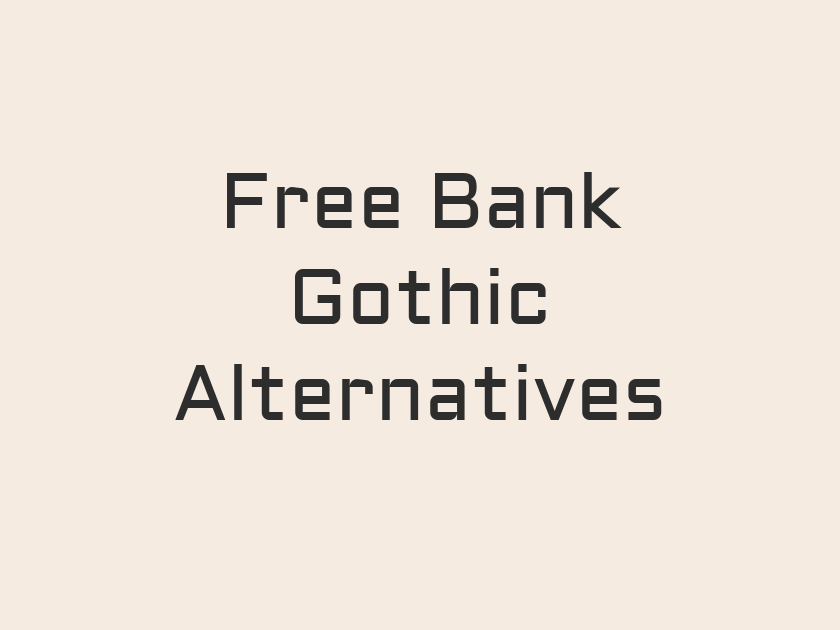
14 Best Free Fonts Alternatives to Bank Gothic
Bank Gothic has powered military insignias, sports jerseys, action-movie titles, and tech logos for the better part of a century, but the original typeface sits behind a commercial license. The good news is that the geometric, squared-off, all-caps sensibility that made it a staple of industrial and athletic branding lives on in a handful of free Google Fonts that channel the same engineered, stenciled, no-nonsense attitude. Whether you’re building a esports logo, a fitness brand, or a piece of dystopian film title design, there are solid free alternatives to Bank Gothic that hold up in print and on screen.
1. Aldrich
Aldrich
Aldrich is probably the single closest free match to Bank Gothic’s DNA: geometric monoline strokes, squared curves, and a futuristic-but-restrained posture that reads as engineered rather than decorative. It was built for interfaces and signage, so it holds its shape cleanly at small sizes, something Bank Gothic itself sometimes struggles with. Use it for dashboards, control-panel labels, or any brand that wants to feel precise without going full sci-fi.
2. Michroma
Michroma
Wide, uppercase-only, and mechanically even, Michroma leans harder into the industrial-tech register than most Bank Gothic substitutes. It suits logotypes and headline treatments where letterforms need to feel like they were milled rather than drawn. Pair it sparingly; its width and weight make long paragraphs impractical, so save it for titles and badges.
3. Orbitron
Orbitron trades Bank Gothic’s military edge for something closer to a space-age console readout, all sharp verticals and geometric circles standing in for curves. It has become something of a cliché in tech and gaming logos, so use it with intention rather than as a default choice. At heavier weights it makes an authoritative display face; avoid it below headline size, where the exaggerated shapes lose clarity.
4. Audiowide
Audiowide
Audiowide has a chunkier, more rounded personality than Bank Gothic, closer to motorsport livery than military stencil. It brings energy and motion to racing, gaming, and automotive branding, and it reads well on dark backgrounds with bold color fills. Keep it to short bursts of text; the letterforms are too dense and playful for body copy.
5. Electrolize
Electrolize
This one is understated compared to its siblings, a low-key geometric sans with a slight technical inflection that never tips into novelty. Electrolize works well as a UI or label font when you want a Bank Gothic-adjacent feel without shouting about it. It pairs comfortably with a plain grotesque for body text in interface or product documentation.
6. Quantico
Quantico
Quantico was designed with a military and government aesthetic in mind, and it shows: slab-like terminals, a squared skeleton, and enough weight options to build a full hierarchy. It is more versatile than most fonts on this list because it actually offers a legible lowercase and a companion serif family. That makes it a rare choice here that can carry both headlines and supporting text in a defense-, security-, or fitness-themed layout.
7. Jura
Jura
Jura is calmer and more rounded than true Bank Gothic substitutes, but its geometric construction and even stroke widths give it a related technical mood. It reads best in tracked-out uppercase headlines for science, engineering, or research-oriented brands. Because it is a variable font, you get a full range of weights to fine-tune contrast against body copy.
8. Wallpoet
Blocky, stenciled, and unapologetically utilitarian, Wallpoet looks like it was cut from sheet metal with a plasma torch. It is one of the more literal echoes of stencil-military lettering in the free font space, ideal for warning labels, crate stamps, or apocalyptic game titles. Its heavy geometry makes it unreadable at small sizes, so reserve it for short, large-scale display use.
9. Staatliches
Staatliches carries the compressed, poster-ready energy of vintage sports and government signage, sitting closer to a condensed display face than a strict Bank Gothic clone. It has real charm in team branding, event posters, and merchandise where a squeezed, high-impact headline is the goal. Keep tracking loose; the letters are already tight enough on their own.
10. Teko
Teko is a tall, narrow workhorse that borrows the same disciplined, no-frills structure sports scoreboards and jersey numbering have used for decades. Its condensed proportions make it efficient for headlines that need to fit tight spaces without shrinking the type size. Unlike some of the more novelty-leaning entries here, Teko also offers a genuinely usable lowercase for subheads.
Bank Gothic’s squared, disciplined character is easy to find echoes of once you know where to look, and the free alternatives here cover everything from military stencils to esports HUDs. Test a few against your actual layout and logo mark before settling on one; the right substitute often depends less on how closely it mimics the original and more on how well it fits the story your brand is trying to tell.